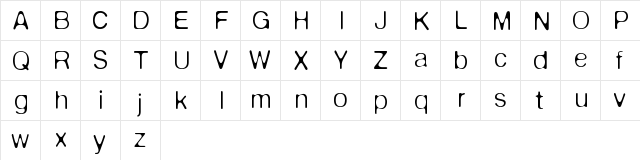
DeFonte Regular
Design Context for DeFonte Typeface
DeFonte takes a measured approach to typography — its balanced proportions and neutral character make it a reliable workhorse for both digital and print work.
Pro Tip: Use DeFonte in both headline and body roles to test its range before committing to a single application.